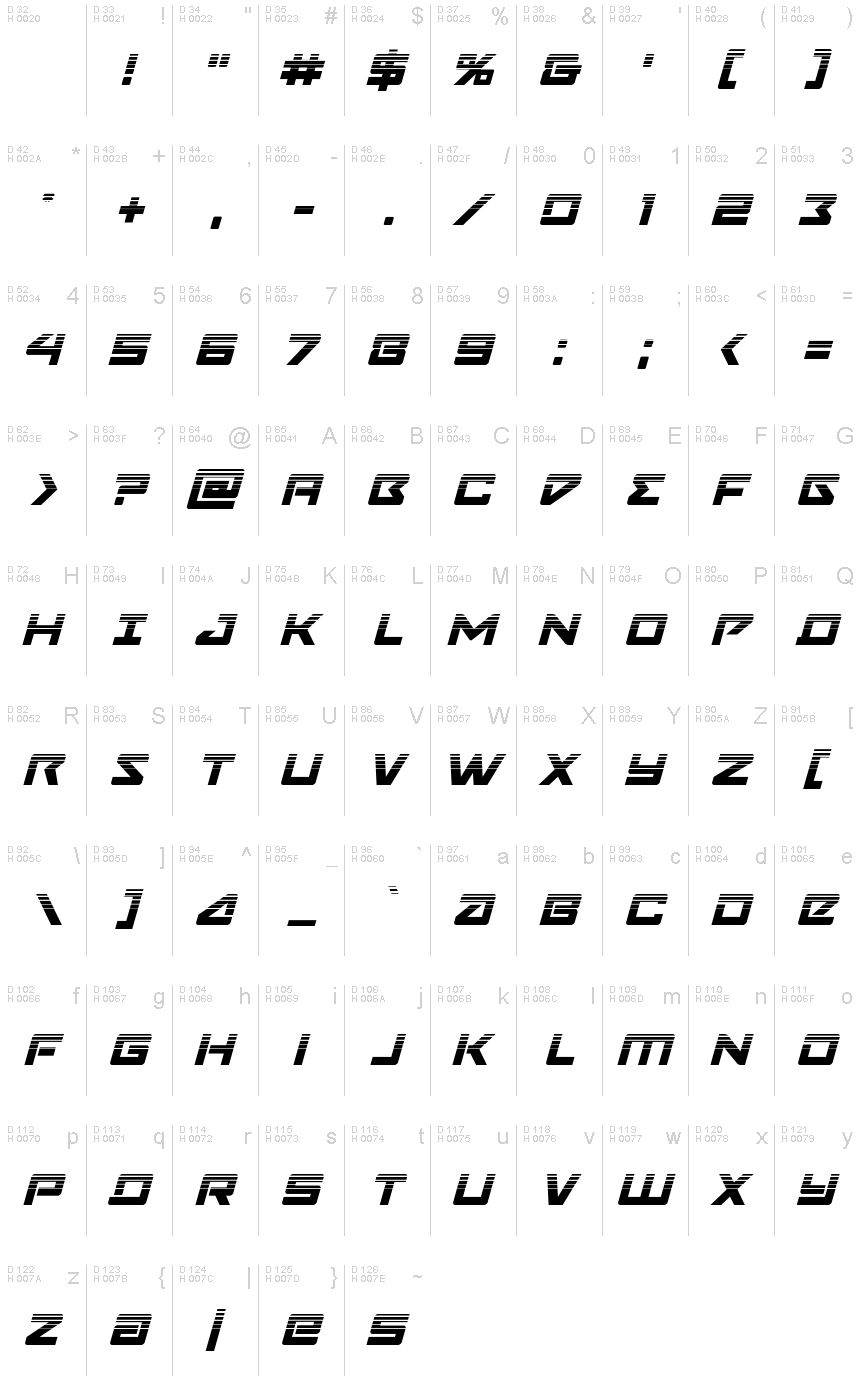
Navy Cadet Halftone Italic
Navy Cadet Halftone Italic is a futuristic, bold, and expanded display font designed by Daniel Zadorozny. With its sharp, angular lines and halftone effect, this font exudes a sense of power and technological sophistication.
Its distinctive style would make it an ideal choice for sci-fi or cyberpunk-inspired designs, grabbing attention with its striking aesthetic. From eye-catching headlines to impactful logos, Navy Cadet Halftone Italic can elevate the visual impact of any project that requires a bold, futuristic touch.
Its versatility extends to various applications, from digital interfaces to product packaging, where it can effectively convey a sense of modernity and innovation.